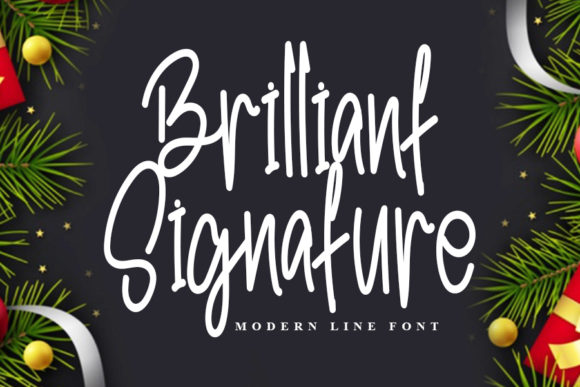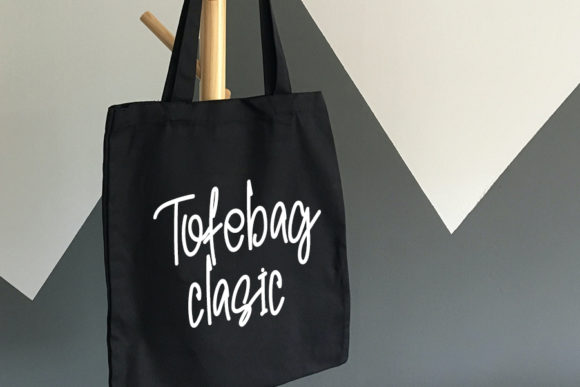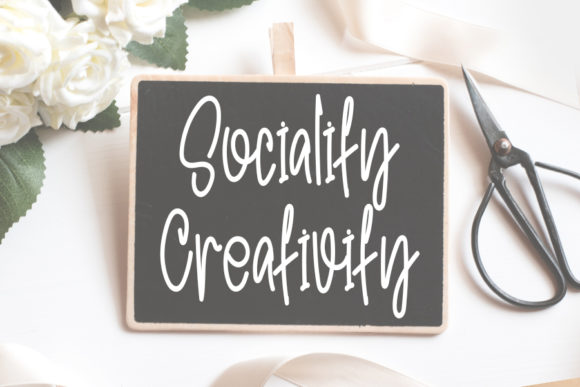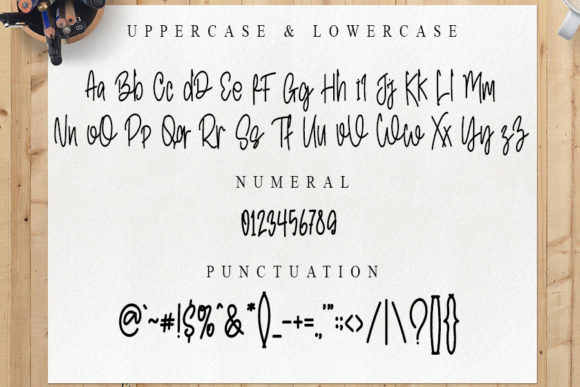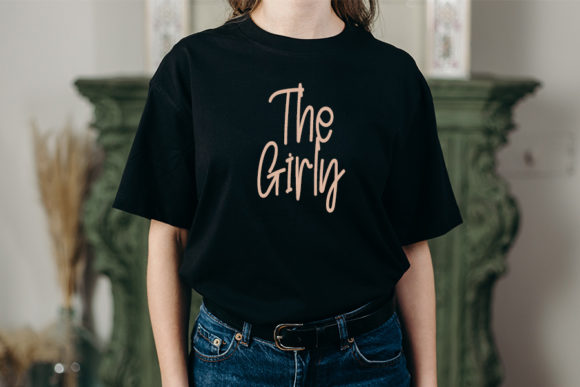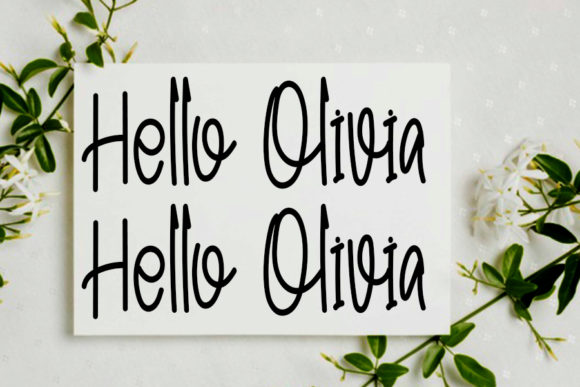
Brilliant Signature Font
About Brilliant Signature Font
Brilliant Signature is a delicate, elegant and flowing handwritten font. It has beautiful and well balanced characters and as a result, it matches a wide pool of designs. Add it to your most creative ideas and notice how it makes them come alive!